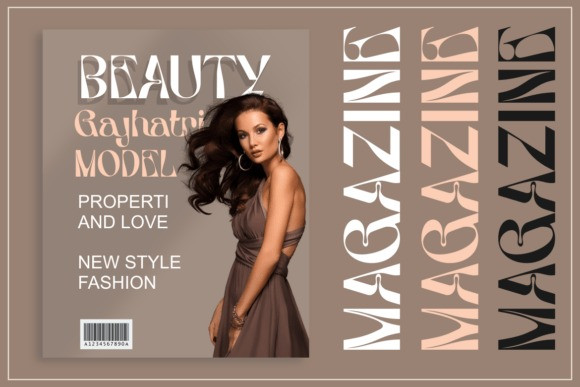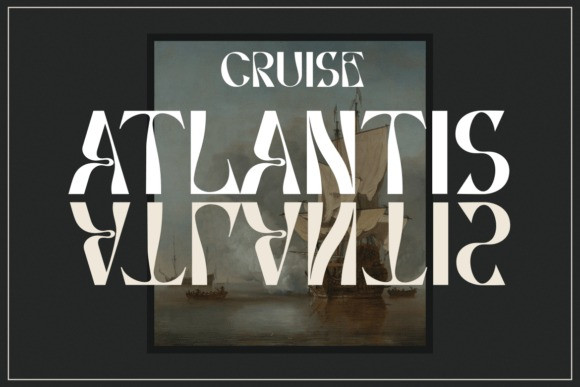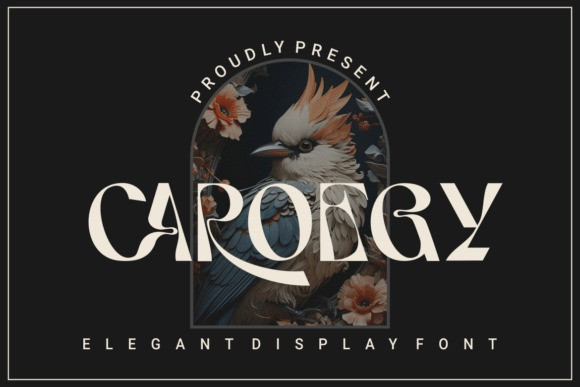
Caroegy Font
Caroegy Font is an elegant and artistic display font that merges sophistication with a futuristic flair. Its high-contrast strokes and creative ligatures give it a luxurious and editorial feel—ideal for fashion branding, headlines, posters, or any design needing a statement.